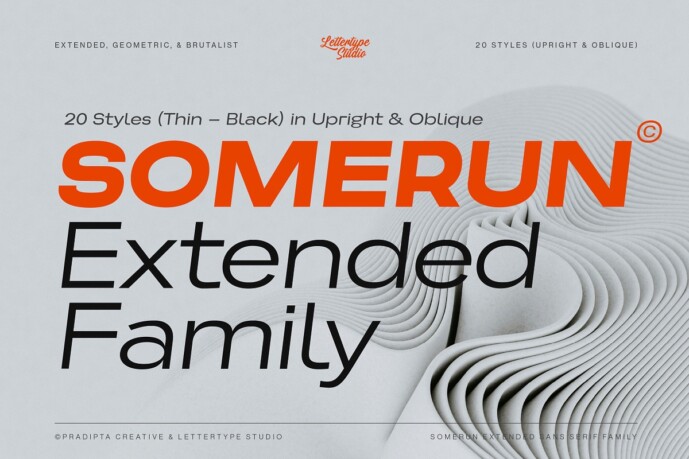
Somerun Extended Font
Designer: Lettertype Studio
Somerun Extended Font is a modern typography with our curated selection of sans serif extended fonts embody grotesque, geometric, and brutalist styles. These typefaces are meticulously crafted to deliver clarity, neutrality, and impactful visual presence, making them ideal for contemporary design projects.
There is a wide range of weights, from thin to extra black, including 20 weights and oblique style. OpenType features include 7 stylistic alternates (A, R, Q, a, g, r, & y), figure variations (superiors, inferiors, fractions, circled numerators, and standard ligatures (fi, ff, fl, ffi, & ffl), and broad Latin language support.
Somerun extended sans serif fonts are crafted with impeccable legibility and sleek, seamless, aesthetic appeal. They are clean, modern, and versatile options for any project like fashions, print design, social media, creatives, poster, signate, branding, UI/UX, web typography, packaging, or editorial design. It will elevate your creative projects and keep your designs on-trend.
Somerun Features:
• 20 Styles
• Upright & Oblique
• 497 Glyphs Total
• 270+ Languages Supports